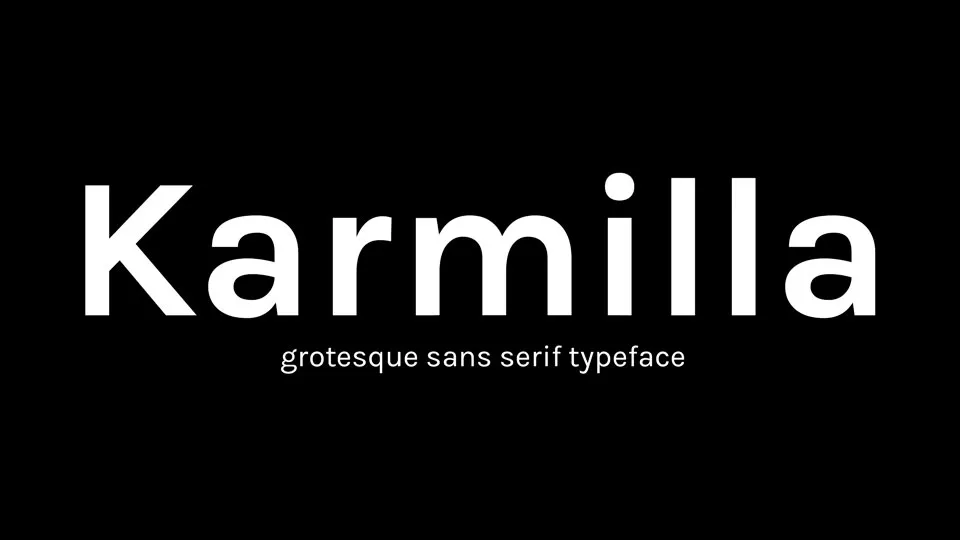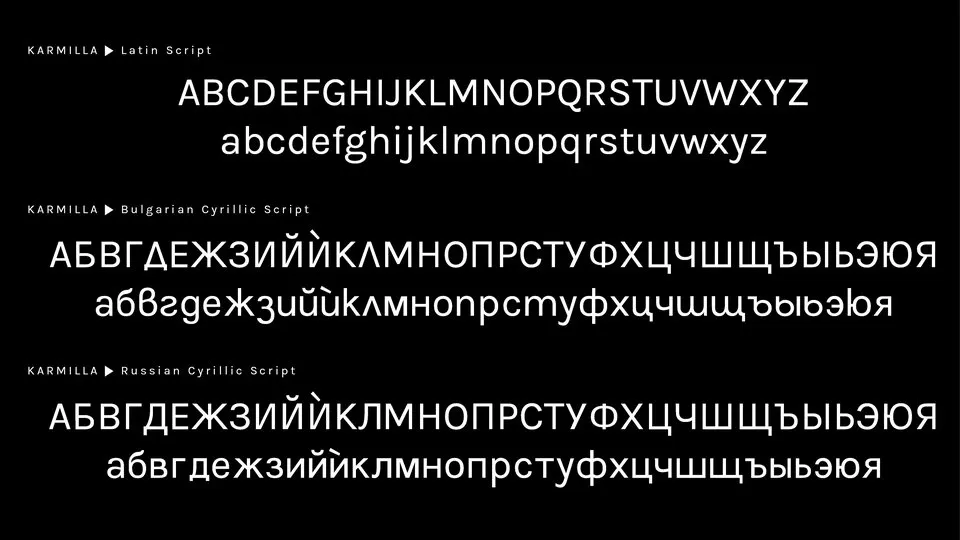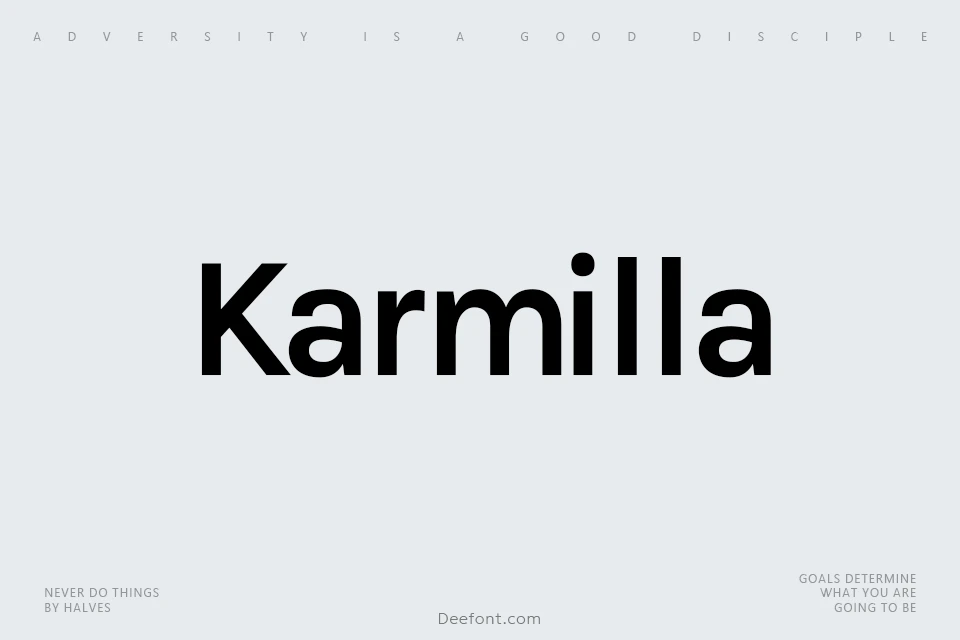
Karmilla Font
Introducing Karmilla, a clean and modern grotesque sans-serif typeface. It’s an expanded and modified version of Jonathan Pinhorn’s popular Karla font, enhanced by Manuel Schmalstieg. Karmilla was developed specifically to provide extended language support, incorporating characters necessary for French, German, Scandinavian, Icelandic, and Cyrillic alphabets that were absent in the original Karla. Additionally, it refines certain glyphs for better consistency across different languages. Perfect for designers who appreciate Karla’s style but require broader linguistic capabilities, Karmilla offers a versatile, free typeface suitable for clear communication in both print and web projects.